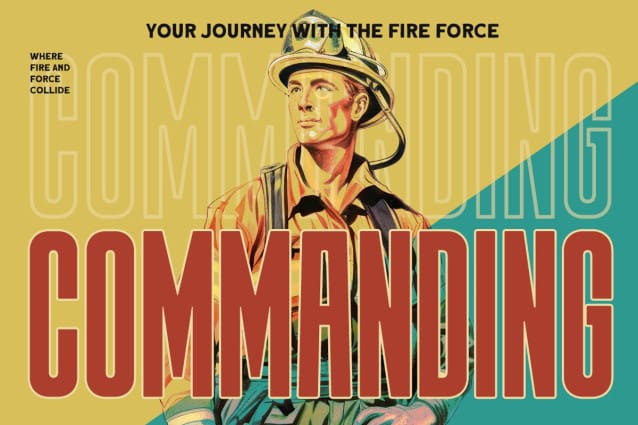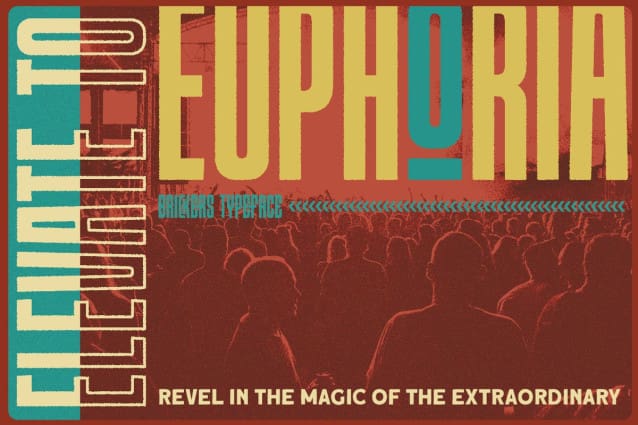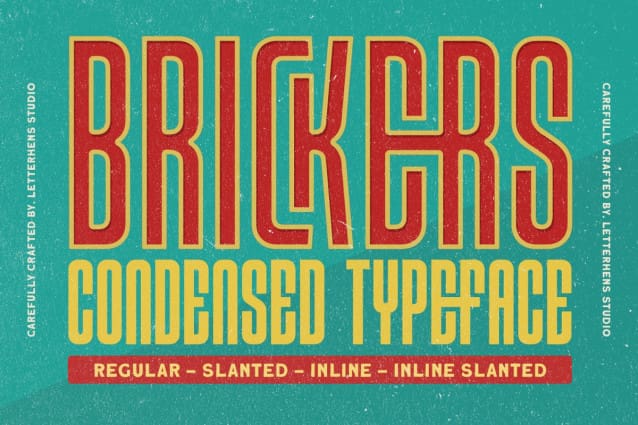
Brickers Condensed Font
Brickers Condensed Font, with its clean and crisp appearance, it comes with 4 styles : regular, slant, inline and inline slant.This font adds a unique touch to any design project. From logos to posters, Brickers is the perfect choice for applications that require a fresh and contemporary look.